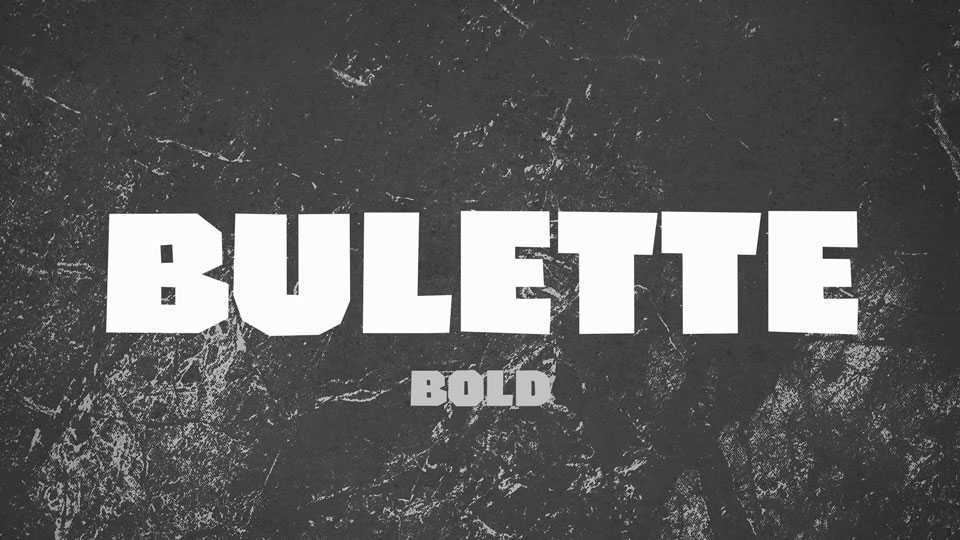
Download Bulette font, a strong and fun heavy display typeface. Bulette font is perfect for loud headlines, posters, prints, games, crafts and other creative projects.
Designer: Jens Kutilek